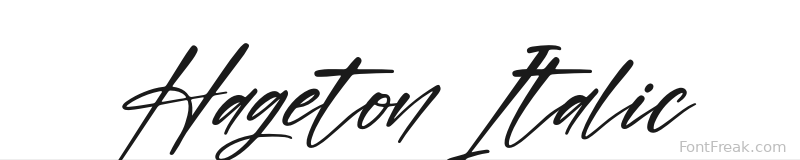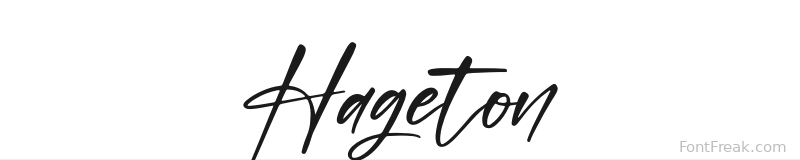
Hageton
Hageton Italic
About Hageton
Hageton, created by Perspectype Studio in 2021, is a striking display font that blends modern elegance with a touch of artistic flair. This italicized typeface showcases a unique visual style characterized by its smooth, flowing lines and a harmonious balance between thick and thin strokes. With a moderate contrast in stroke weight, Hageton maintains readability while providing a creative edge, making it a versatile option for various design projects. The generous spacing between characters enhances its legibility, allowing it to shine in both digital and print formats.
Ideal for a range of applications, Hageton is particularly well-suited for wedding invitations, where its elegant curves can evoke romance and sophistication. It also shines in restaurant menus, adding a touch of class to culinary offerings, and movie posters, where it can effectively convey a sense of drama and intrigue. Graphic designers and content creators will find it a perfect choice for branding projects, helping to elevate logos and promotional materials with its distinctive style.
What sets Hageton apart is its ability to combine personality with professionalism. The italicized form adds a dynamic energy, making it not just a font, but a statement. Whether used for formal invitations or eye-catching advertisements, Hageton brings a refreshing aesthetic that captures attention and leaves a lasting impression.